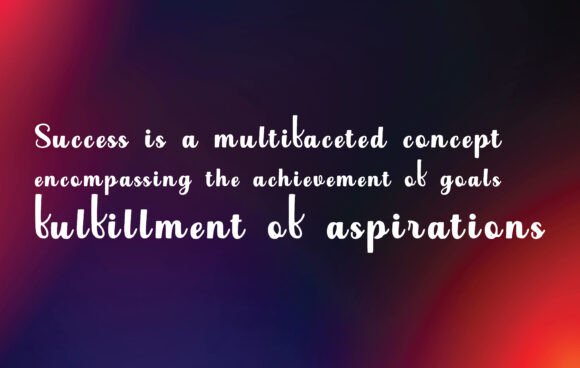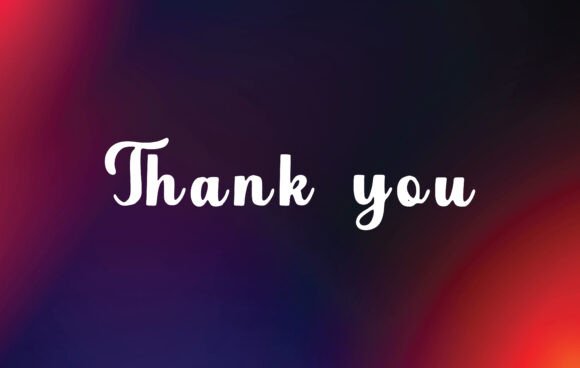
Introduction to Malena Font
Have you ever sat at your desk, staring at a blank page, waiting for that perfect idea to strike? It’s a moment we’ve all been in – the creative spark is there, but it needs a little nudge to bring it to life. For designers, finding the right font can be the difference between a good design and a great one. And that’s where the beautiful Malena Font comes in.
With its elegant, handwritten feel, Malena Font has the power to elevate your creative projects and make them truly stand out. Whether you’re working on a logo, branding, or quote, this high-quality font is the perfect design resource to help you achieve your vision.
Key Features of Malena Font
- High-quality design resource for creative projects, ideal for use in digital art and graphic design.
- Includes a range of font styles and sizes, making it a versatile design resource for various creative projects.
- Designed with a unique aesthetic, perfect for adding a touch of elegance and sophistication to designs.
- Can be easily scaled and manipulated to suit the needs of various creative projects, from small graphics to large-scale designs.
Honest Review: Malena Font
I recently had the chance to work with the Malena Font, and I must say it’s a great addition to any designer’s toolkit. ✨ This free download is perfect for any creative project that requires a beautiful, elegant script font.
- The Malena Font is incredibly versatile and can be used in a variety of design contexts, from logos to headings and even as a decorative element.
- The font’s high quality is immediately apparent, with smooth lines and a consistent style that makes it easy to read.
However, there are a few limitations to keep in mind. ⚠️ The font may not be suitable for use in very small sizes, as the lines can become a bit fuzzy. Additionally, the font’s script style may not be to everyone’s taste.
Overall, I’m very impressed with the Malena Font. It’s a great design resource that’s perfect for designers looking for a high-quality script font. Whether you’re working on a personal project or a client’s brief, the Malena Font is definitely worth checking out.
Tips for Getting the Most Out of Malena Font
Experiment with different font sizes and colors to create a visually appealing design. Use the transparent background feature to create stunning graphics and logos. Combine the Malena Font with other design resources, such as images and shapes, to create a unique and creative project.
The Malena Font is perfect for a variety of creative projects, including social media graphics, blog posts, flyers, presentations, and documents. Its high-quality design and transparent background feature make it an ideal choice for designers and non-designers alike.
Alternatives to Malena Font
Alex Brush Font is a high-quality script font ideal for creative projects that require a touch of elegance and sophistication. It’s perfect for designing wedding invitations, menus, or any other document where you want to add a personal touch. Alex Brush Font is available for free download and can be easily customized to fit your design needs.
Compared to Malena Font, Alex Brush Font has a more delicate and refined feel, making it suitable for projects that require a softer, more feminine touch.